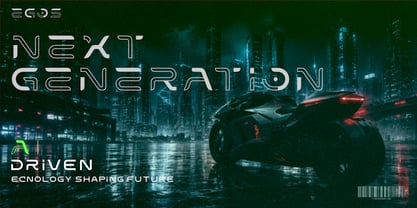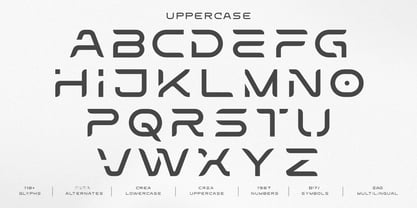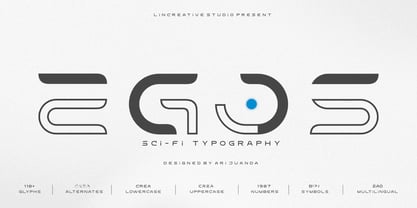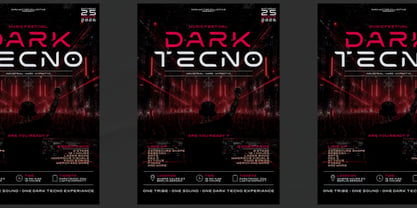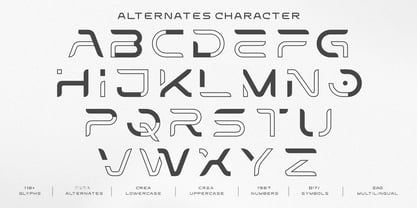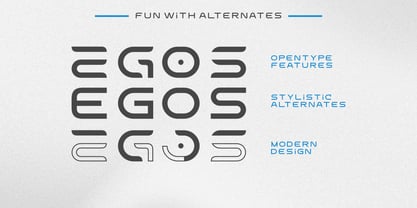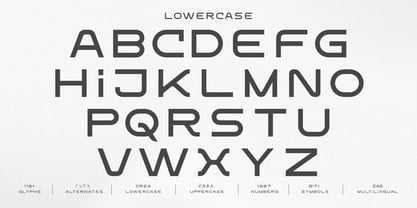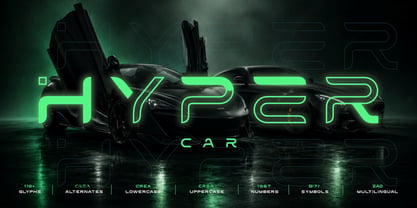
Egos
by Linecreative
The Egos Font Family was designed by Ari Juanda and published by Linecreative. Egos contains 1 styles. More about this family
EGOS is a futuristic display font inspired by advanced technology, cyberpunk aesthetics, and sleek sci-fi interfaces. Designed with clean geometric forms and precision-cut details, every character delivers a modern, high-tech appearance while maintaining excellent readability.
Whether you're building a futuristic brand, designing an esports identity, creating an electronic music poster, or developing visuals for a sci-fi project, EGOS gives your work a bold technological personality that instantly captures attention.
Its carefully crafted Stylistic Alternates let you explore multiple character combinations, making every headline feel unique, dynamic, and professionally crafted.
From neon-lit cyber cities to cutting-edge digital concepts, EGOS is made for creators who want to design the future.
If your project needs a typeface that feels modern, precise, and built for tomorrow, EGOS is ready to elevate your ideas.
Design the Future. Create Without Limits.
Designers: Ari Juanda
Foundry: Linecreative